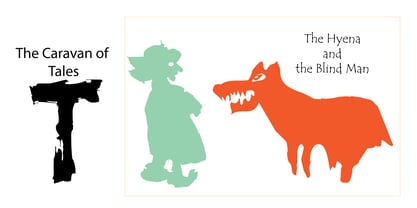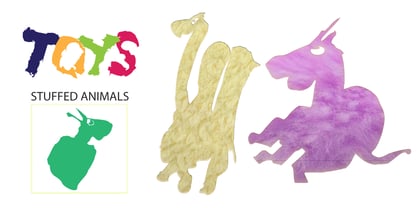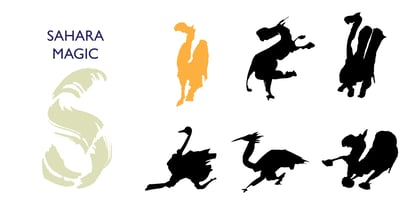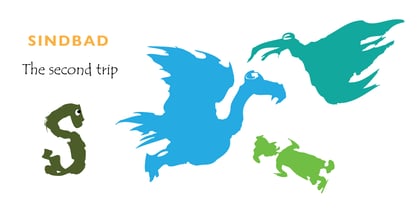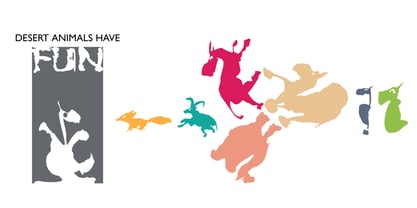
Sahara magic
La famille de polices Sahara magic a été conçue par Taouffik S Semmad et publiée par SEMMAD. Sahara magic contient 1 styles. En savoir plus sur cette famille
The people, flora, and fauna of this region are fascinating. This place is home to a wide variety of humans, plants, and animals that have adapted to an arid environment. But in this peaceful and serene setting, a mysterious and little-known life craves silence and tranquility. Transposing it into humorous pictograms could prove useful for signage during discoveries and tourist visits, as well as for advertising, book illustrations, parties, cartoons, etc. I have also included some animal pictograms in one of my illustrated books.
SEMMAD is a new font library that stands out for its innovative approach to typographic design. All fonts and pictograms are first drawn by hand and then digitized, giving them a unique strength.Inspiration is drawn from current world events, most often.This is a form of expressionism that involves exploiting and transforming the calligraphic alphabet, then transforming it into typography.